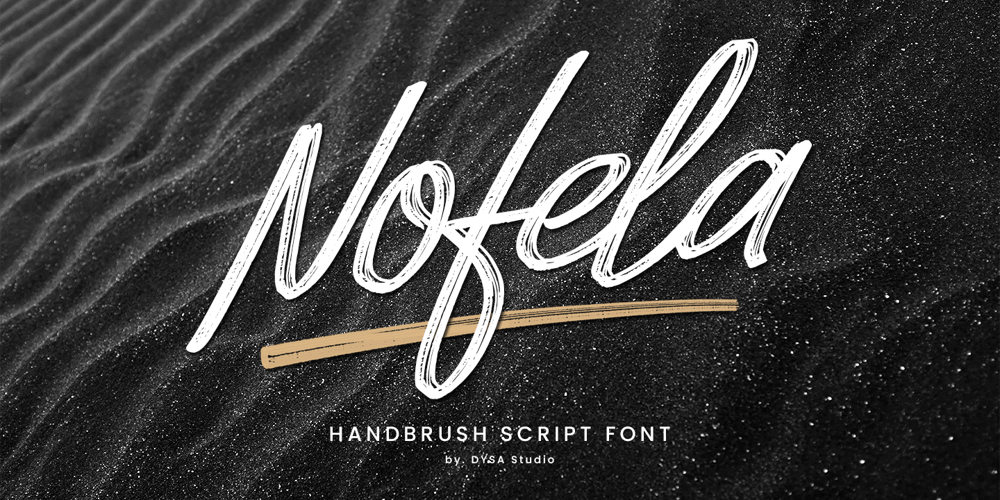
Nofela Font Family was designed by Yusup Saputra and published by DYSA Studio. Nofela contains 2 styles and family package options. Nofela is a Handwritten Brush Script font. This another collection of script is perfect for your next personal branding project, excellent for your business. Nofela have a smooth edges, so this font gives an authentic handcrafted feel style.Nofela is perfect choice for people looking for clean, modern, minimalist, elegant, beauty design styles.Suitable for almost any graphic designs such as logo, branding materials, business cards, gift cards, t-shirt, cover, thumbnail, print, poster, photography, quotes .etcsans-serif, legible, geometric, clean, sans, modern, display, grotesque, corporate, branding, magazine, contemporary, text, headline, elegant, sans serif, grotesk, advertising, classic, swiss, poster, logo, editorial, technical, logotype